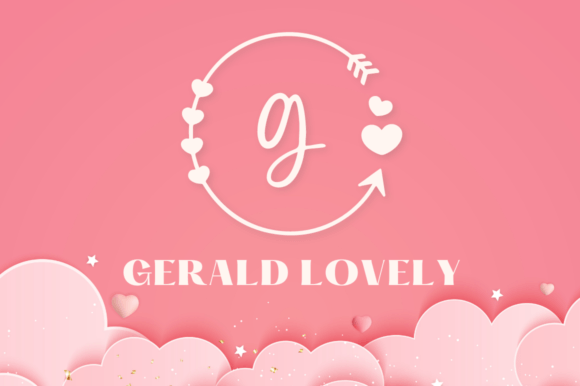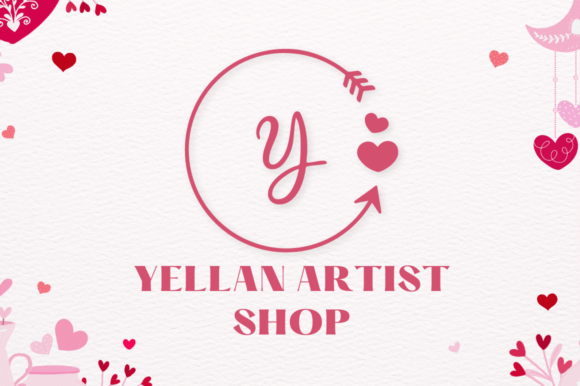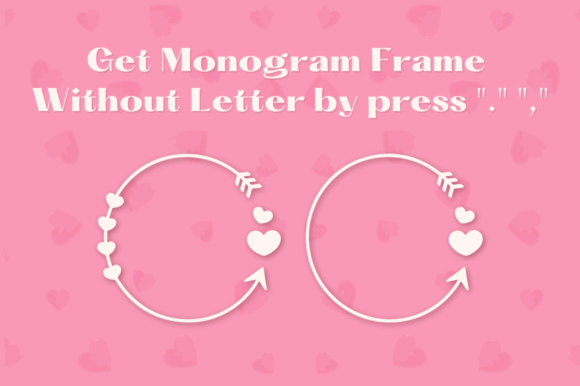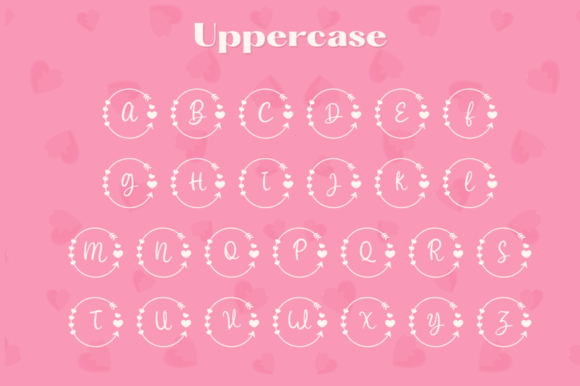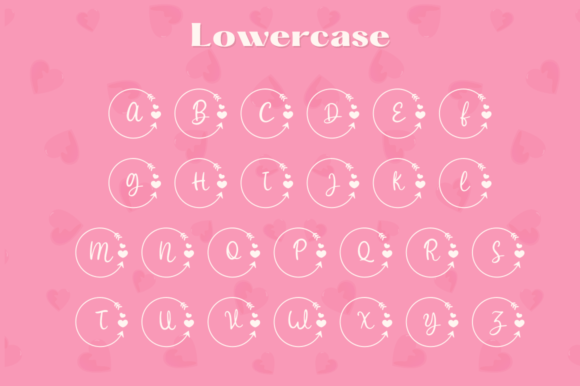
Ditha Valentine Monogram Font: The Perfect Addition to Your Design Arsenal
Are you on the hunt for a font that exudes love, charm, and playfulness? Look no further than the Ditha Valentine Monogram Font! This adorable decorative arrow font is sure to capture your heart with its lovely characters, making it an ideal choice for a variety of design projects. In this article, we’ll dive into the world of Ditha Valentine Monogram, exploring its features, uses, and benefits for designers and crafters alike.
What is Ditha Valentine Monogram Font?
Ditha Valentine Monogram Font is a unique and captivating typeface that boasts a cute and decorative arrow design. Its distinctive style is perfect for adding a touch of whimsy and romance to your designs. Whether you’re working on a special occasion, business project, or personal creation, this font is sure to make it stand out from the crowd.
Key Features of Ditha Valentine Monogram Font
- Cute and Decorative Design: The font features a charming arrow design that adds a playful touch to any project.
- Lovely Characters: Each character is carefully crafted to exude love and charm, making it perfect for designs that require a personal touch.
- 2 Styles in 1: The font comes in two styles, which can be easily accessed by switching between uppercase and lowercase letters.
- Versatile: Suitable for a wide range of design projects, including logos, branding, social media posts, wedding cards, and more.
Uses for Ditha Valentine Monogram Font
The versatility of Ditha Valentine Monogram Font makes it an excellent addition to any designer’s toolkit. Here are some ideas to get you started:
- Wedding and Event Designs: Add a touch of romance to your wedding cards, invitations, and event branding with this beautiful font.
- Logos and Branding: Create a unique and memorable logo for your business or personal brand with Ditha Valentine Monogram Font.
- Social Media Posts: Stand out on social media with eye-catching graphics and posts featuring this adorable font.
- Crafting and DIY Projects: Use the font to add a personal touch to your crafting and DIY projects, such as handmade cards, gift tags, and more.
Ditha Valentine Monogram Font offers numerous benefits for designers and crafters, including:
- Time-Saving: With two styles in one font, you can easily switch between designs without having to download multiple fonts.
- High-Quality Design: The font is carefully crafted to ensure high-quality design and clear readability.
- Unique and Creative: Ditha Valentine Monogram Font adds a touch of uniqueness and creativity to your designs, setting them apart from others.
In conclusion, Ditha Valentine Monogram Font is a charming and versatile typeface that is sure to capture your heart. With its cute and decorative arrow design, lovely characters, and two styles in one font, it’s the perfect addition to your design arsenal. Whether you’re a designer or crafter, this font is ideal for a wide range of projects, from wedding designs to logos and social media posts. So why wait? Fall in love with Ditha Valentine Monogram Font and take your designs to the next level!